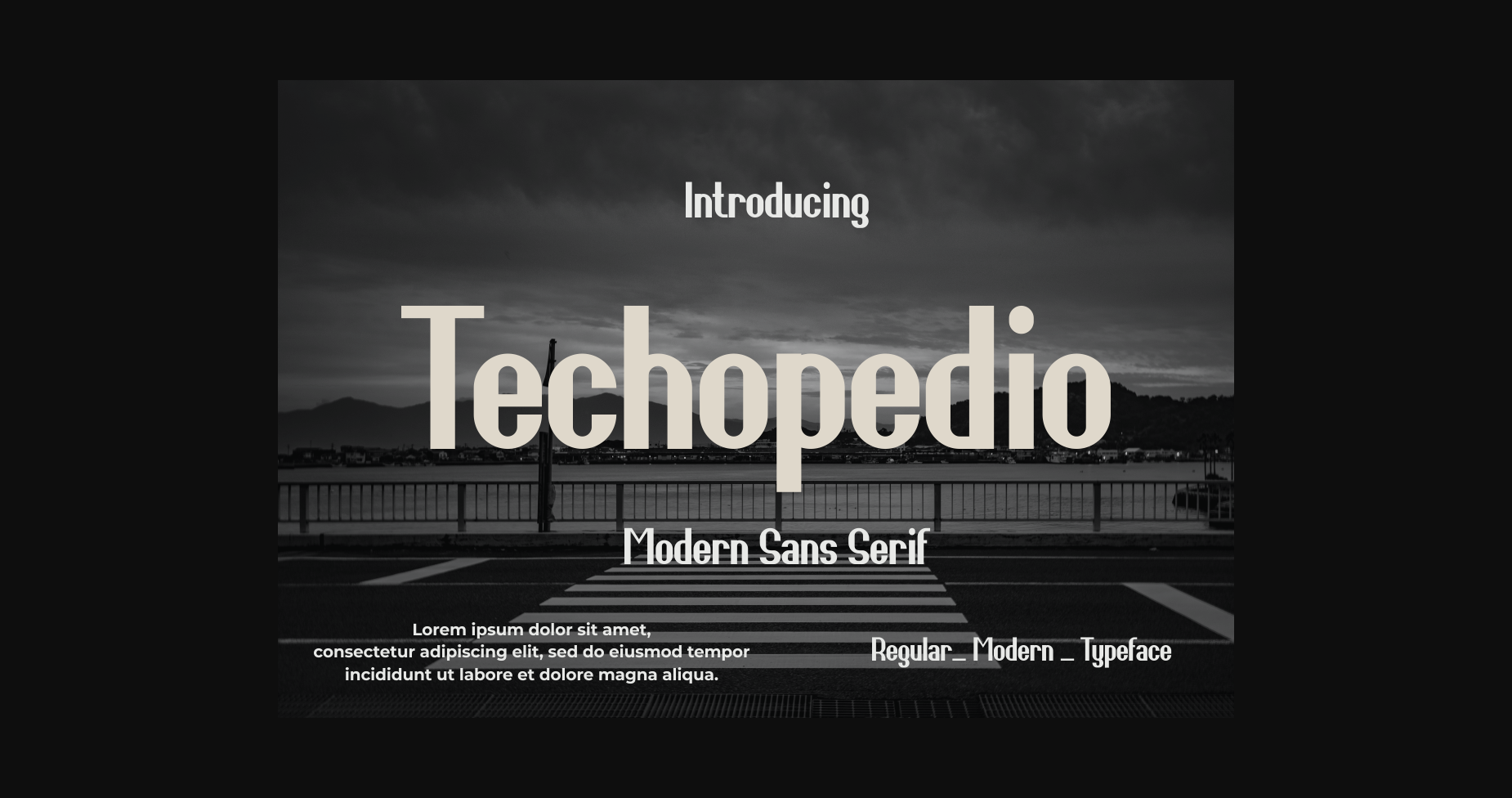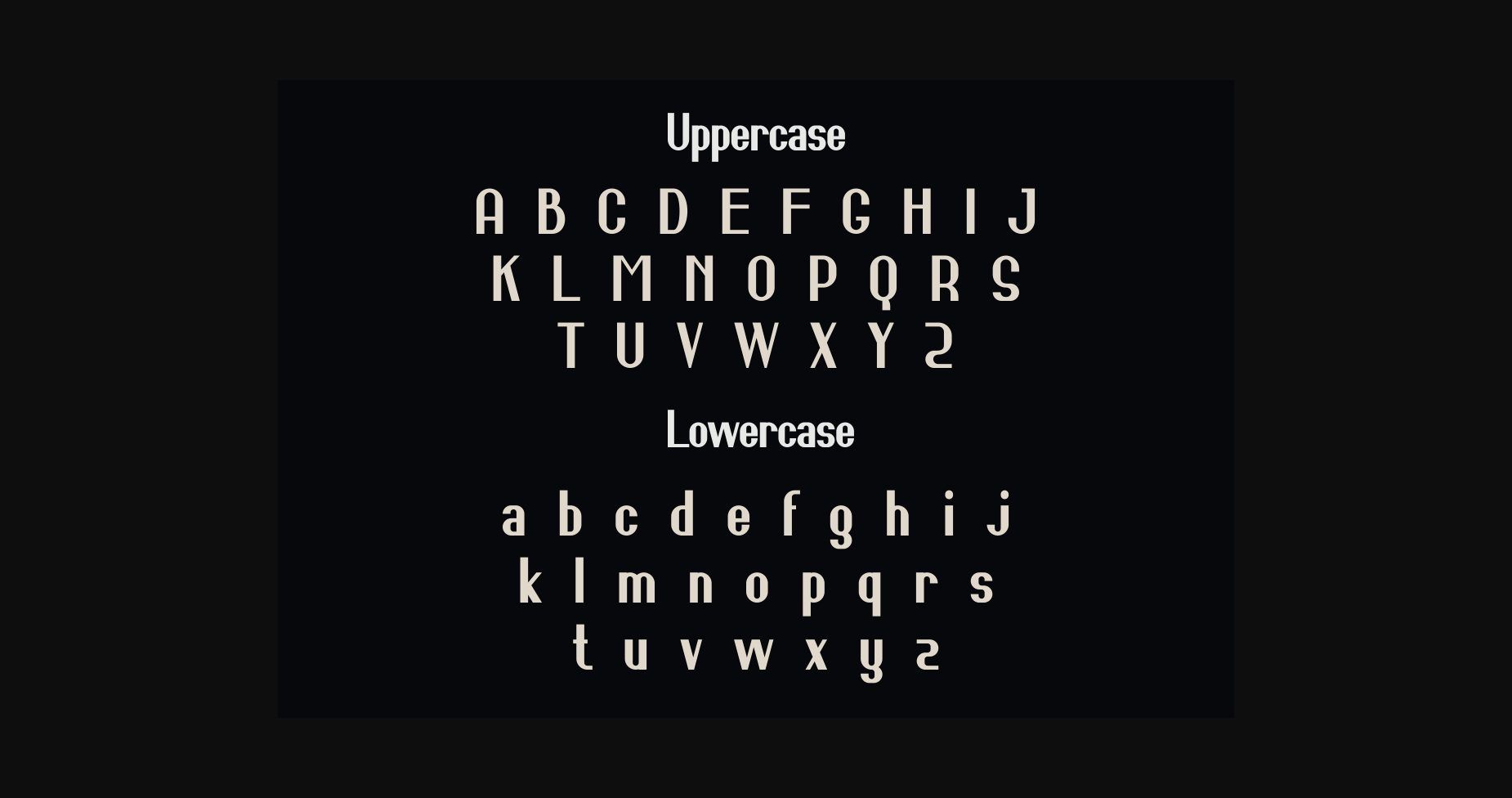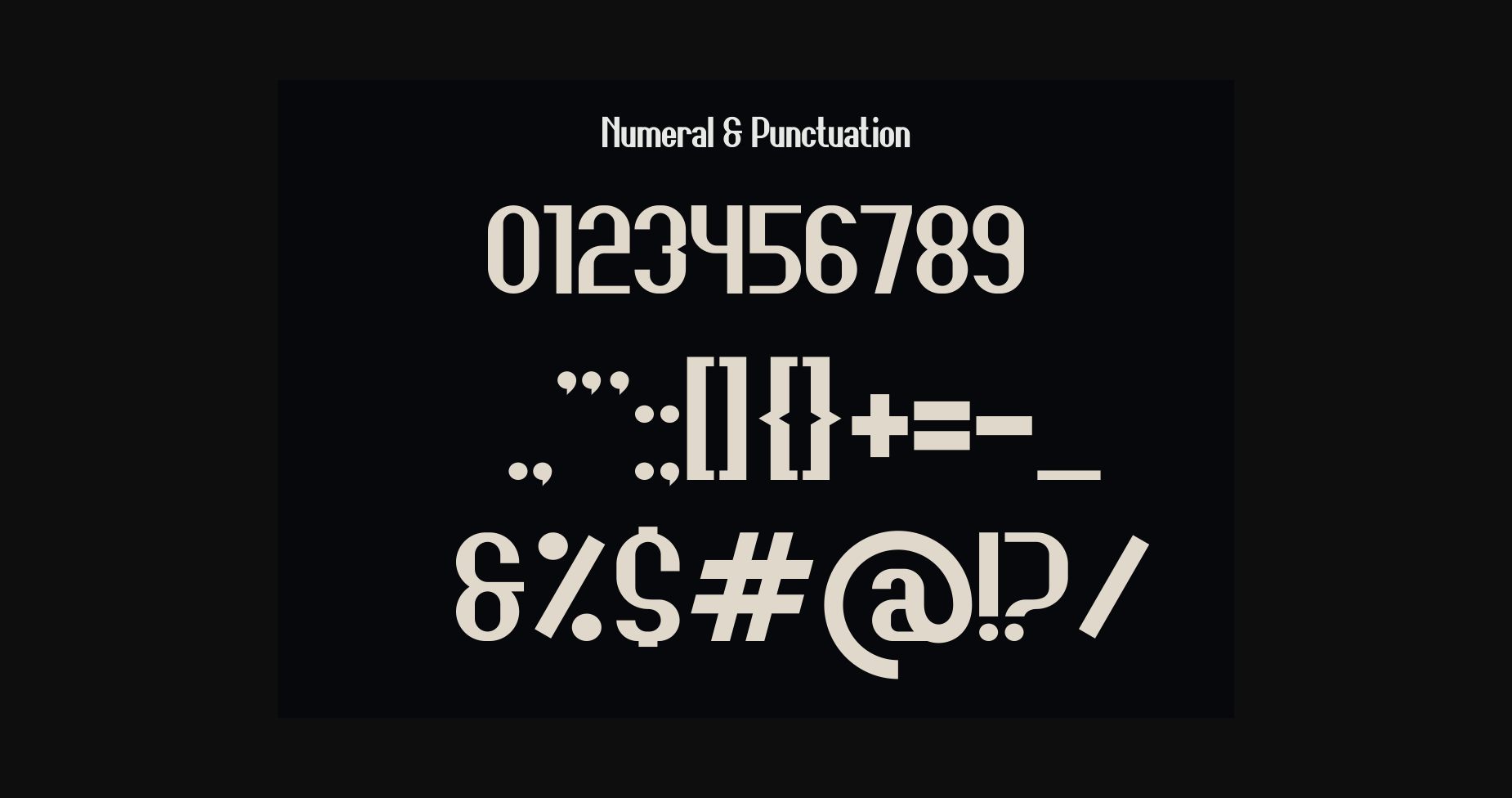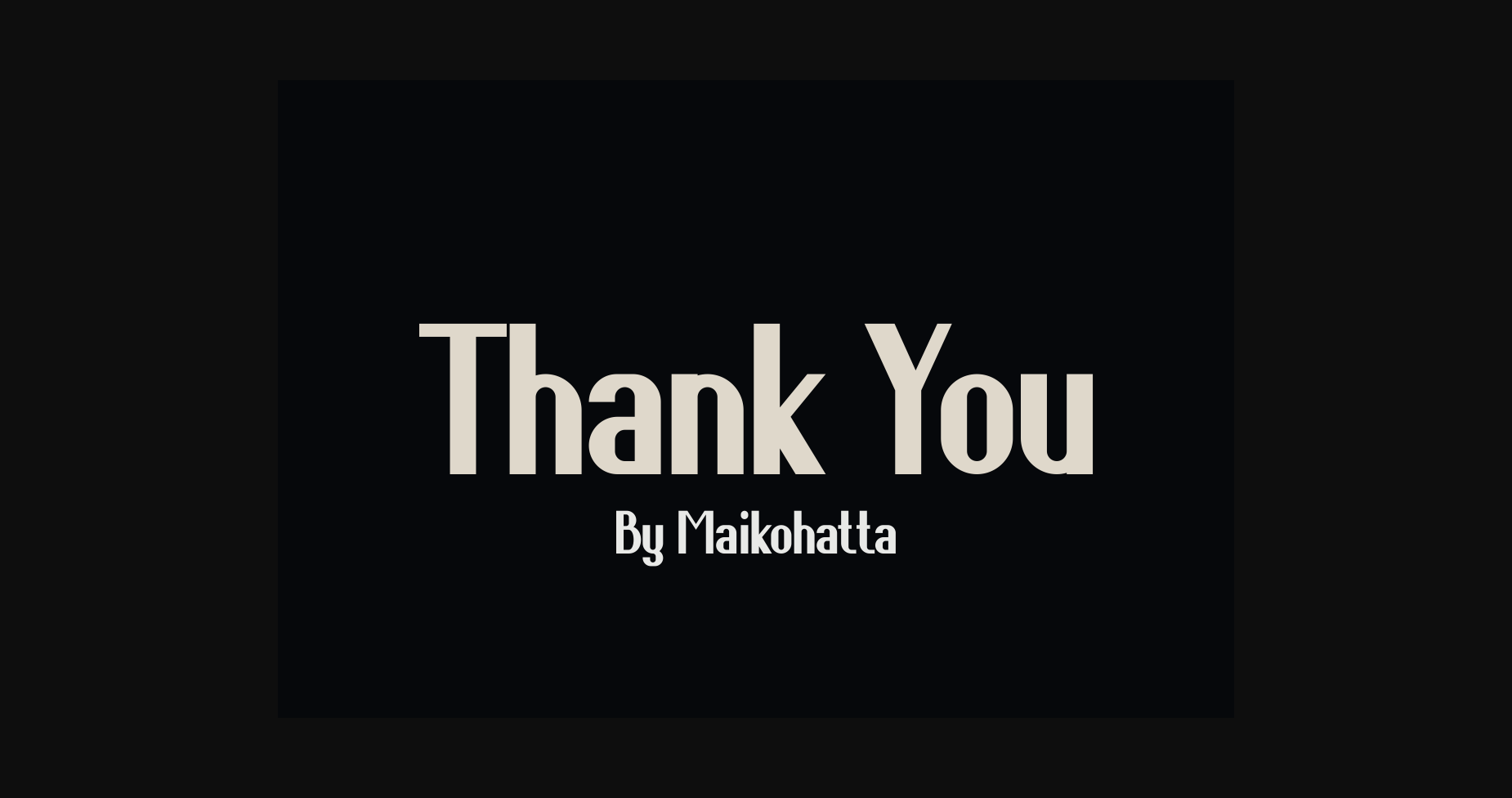
HomeSans Serif FontsTechopedio Font Sans Serif Fonts Techopedio Font FacebookXPinterestWhatsApp 1 of 6 ... Techopedio Font Poster 2... Techopedio Font Poster 3... Techopedio Font Poster 4... Techopedio Font Poster 5... Techopedio Font Poster 6... About Techopedio Font Techopedio is a cool and modern sans serif font. It has a clean, thin, and smooth vibe and it will be a hit for any design that you want to add it to. DOWNLOAD NOW People also explored Texture Font Give You What You Like Font Gebrina Script Font Sky Castle Font Klamber Satisfaction Font Italic Cramasion Font Drop Cap One Blaze Stanley Font Astronaut Font 297 0 TagsTechopedio Font Previous articleTemporer FontNext articleFrancobase Font LEAVE A REPLY Cancel reply Comment: Please enter your comment! Name:* Please enter your name here Email:* You have entered an incorrect email address! Please enter your email address here Website: Save my name, email, and website in this browser for the next time I comment. Personal Use Free Austins Personal Use Free Read more about this font Deftone Personal Use Free Read more about this font Penelope Brush Script Font Personal Use Free Read more about this font Colourbars Personal Use Free Read more about this font BLOG Top 10 Handwritten Fonts That Elevate Your Designs Top 10 Handwritten Fonts That Will Elevate Your Designs Handwritten fonts bring a warm, personal touch to every creative project. Whether you're designing logos, invitations,... The 10 Best Handwriting Fonts to Add Personality to Your Designs How to Install and Use Fonts on Windows, macOS, and Web Projects Using Fonts in Digital Marketing: Tips to Strengthen Your Brand Identity